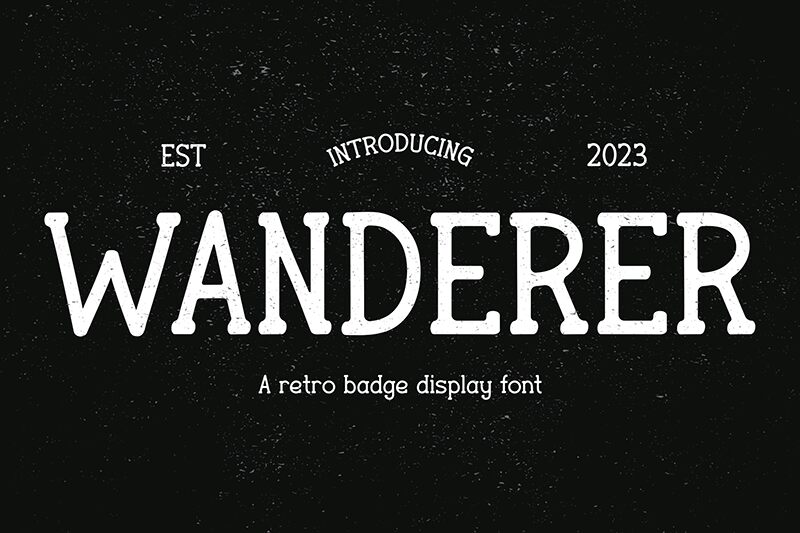
Wanderer font by Idebareng is a free retro serif typeface that feels like it’s been pulled off a sun-faded road sign or an old travel poster. Its tall, rounded letters and gently wavy strokes give it a rolling, on-the-move energy, while the solid weight keeps every word grounded and legible. There’s a subtle hand-crafted warmth here, like ink pressed into thick paper, that instantly adds character without getting messy.
Using Wanderer, you can bring that nostalgic road-trip mood to coffee packaging, adventure logos, festival posters, t-shirt graphics, book covers, and bold social media titles. This free font works best at larger sizes where its curves and rhythm can breathe. For supporting text, pair Wanderer with a clean geometric sans to keep layouts readable while letting its vintage personality lead.
WANDERER — Презентація шрифту